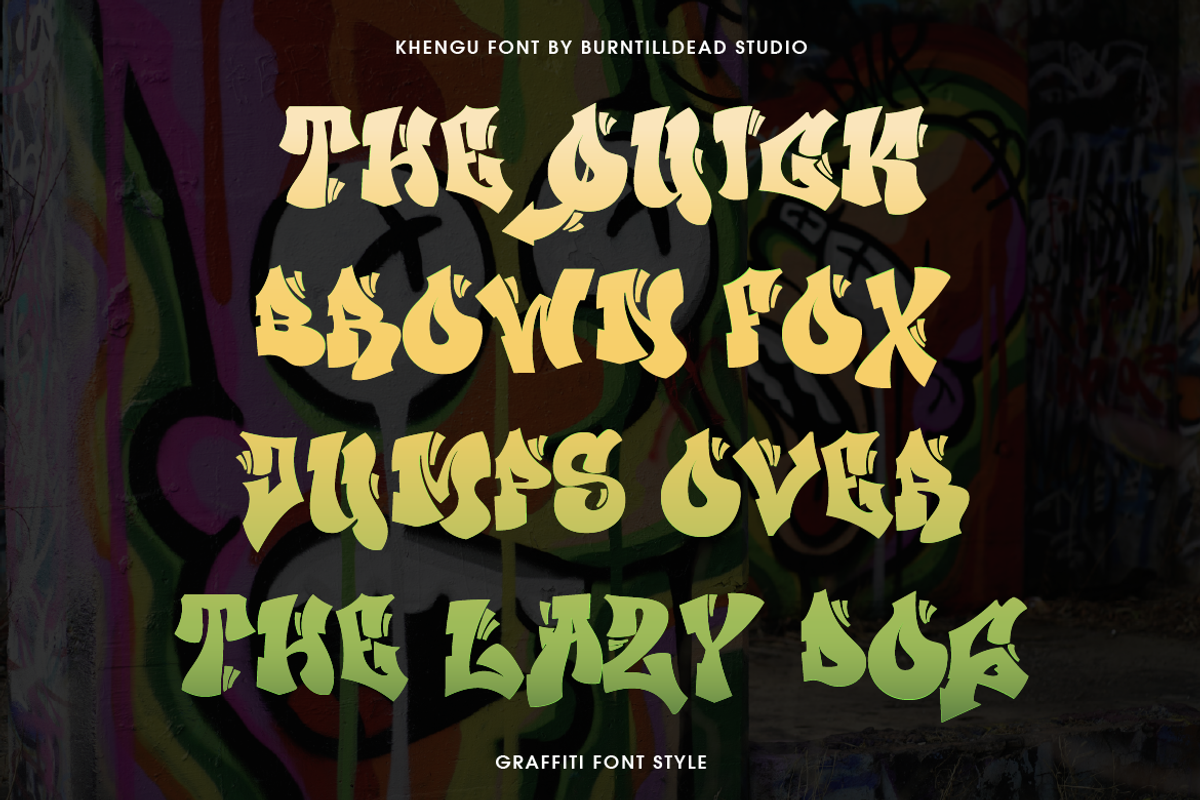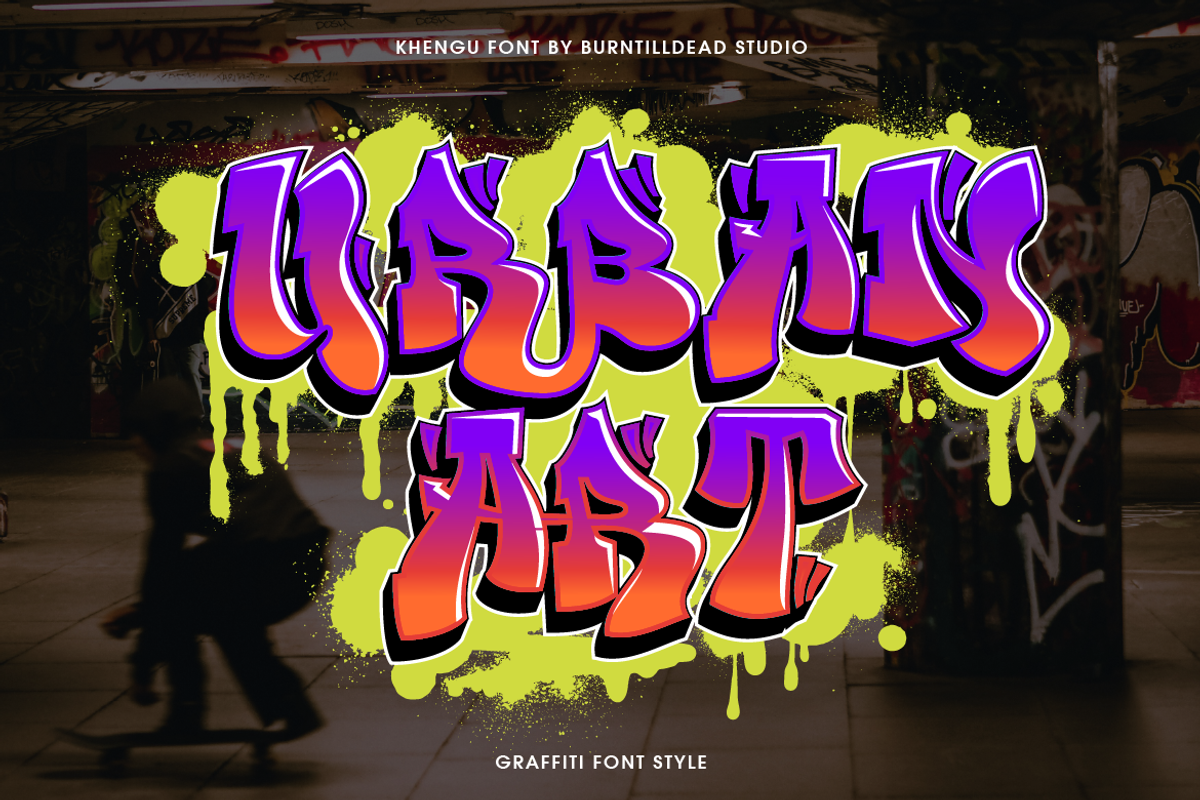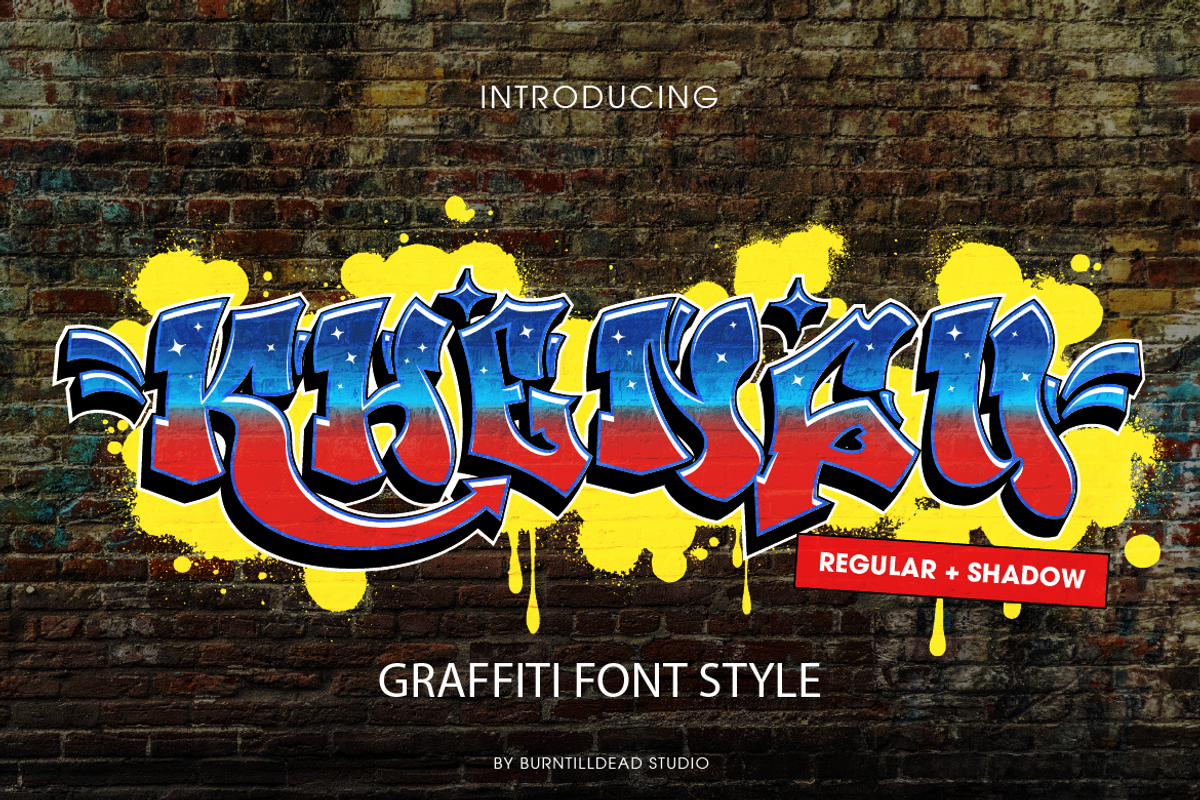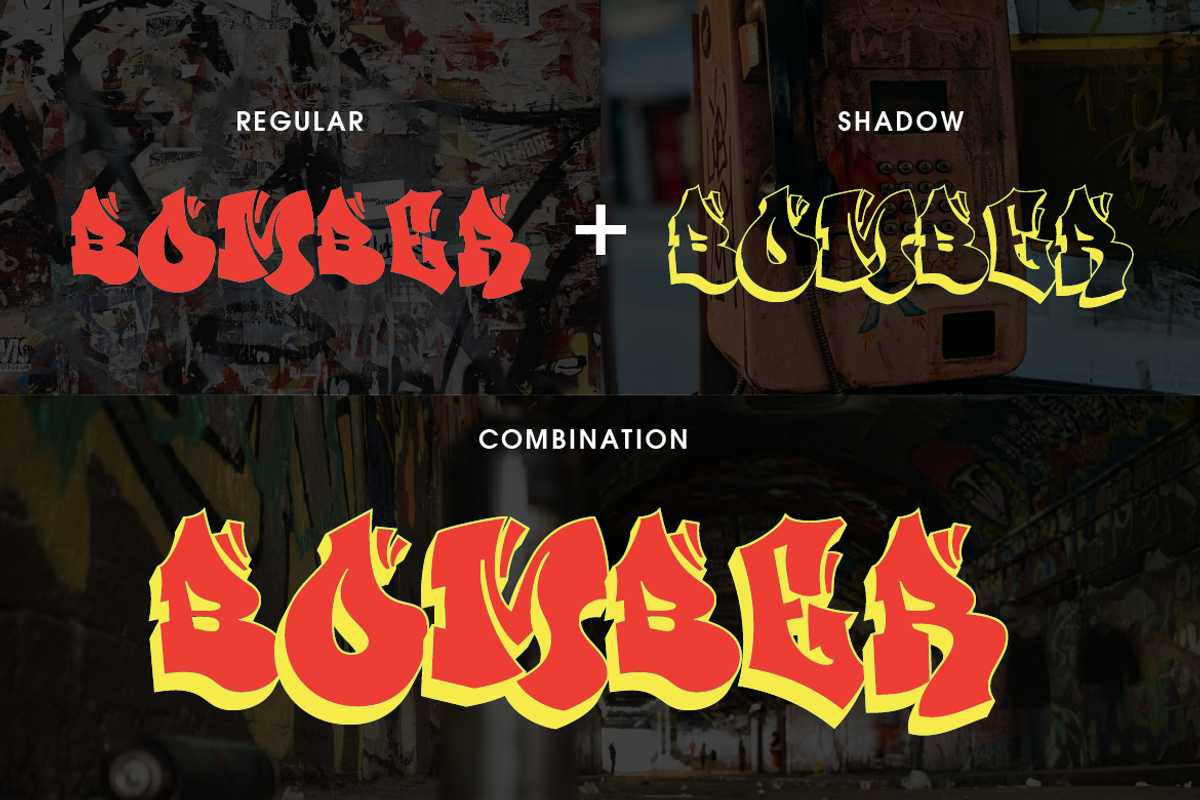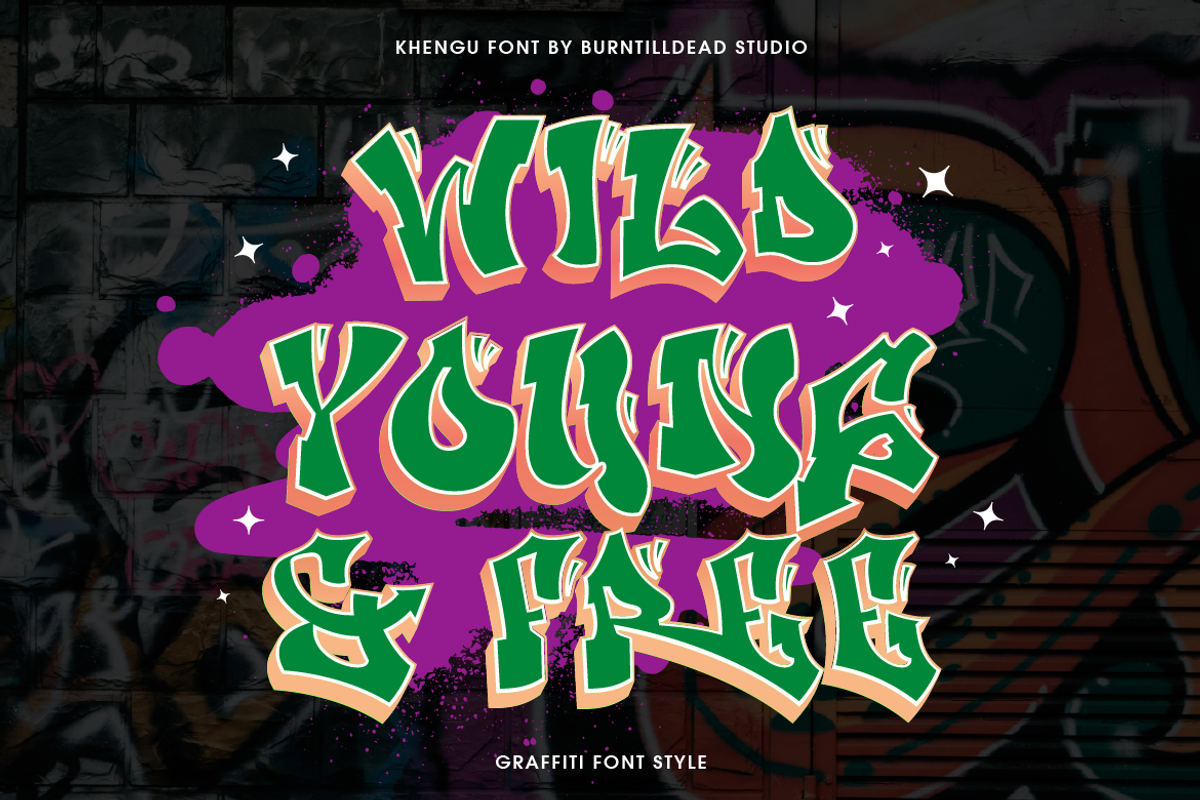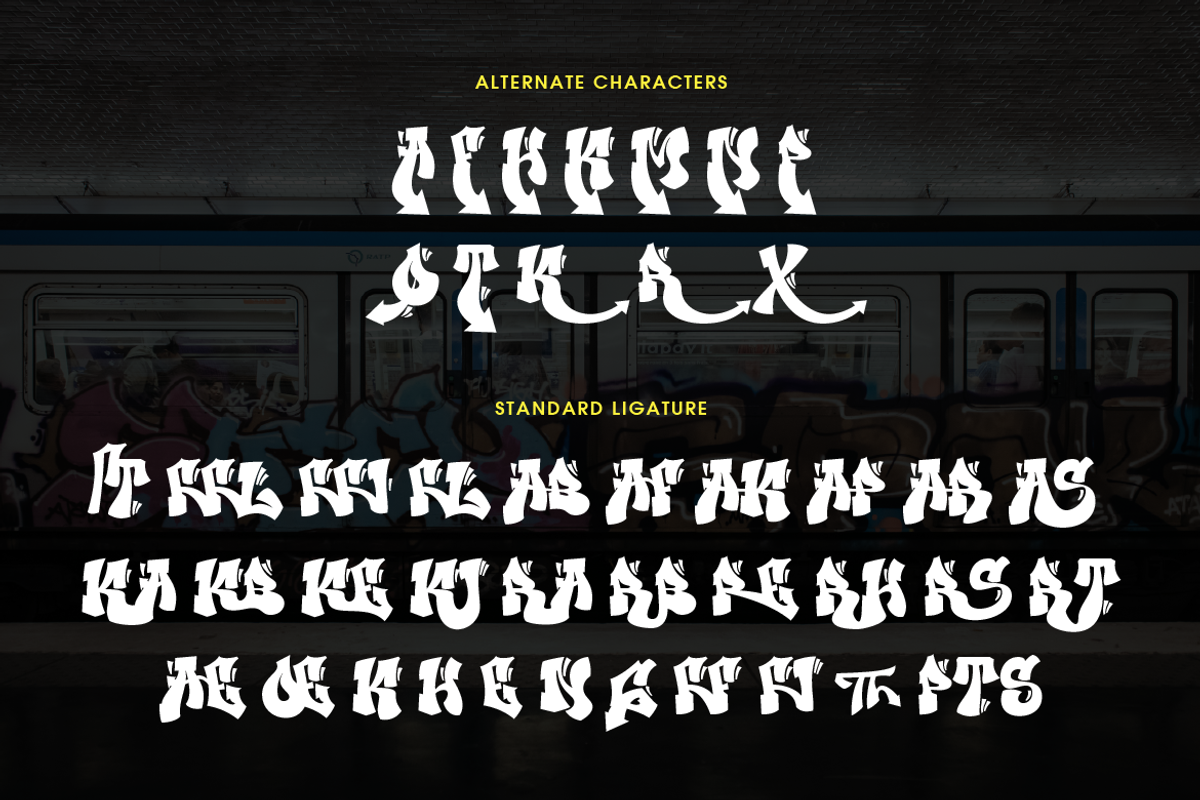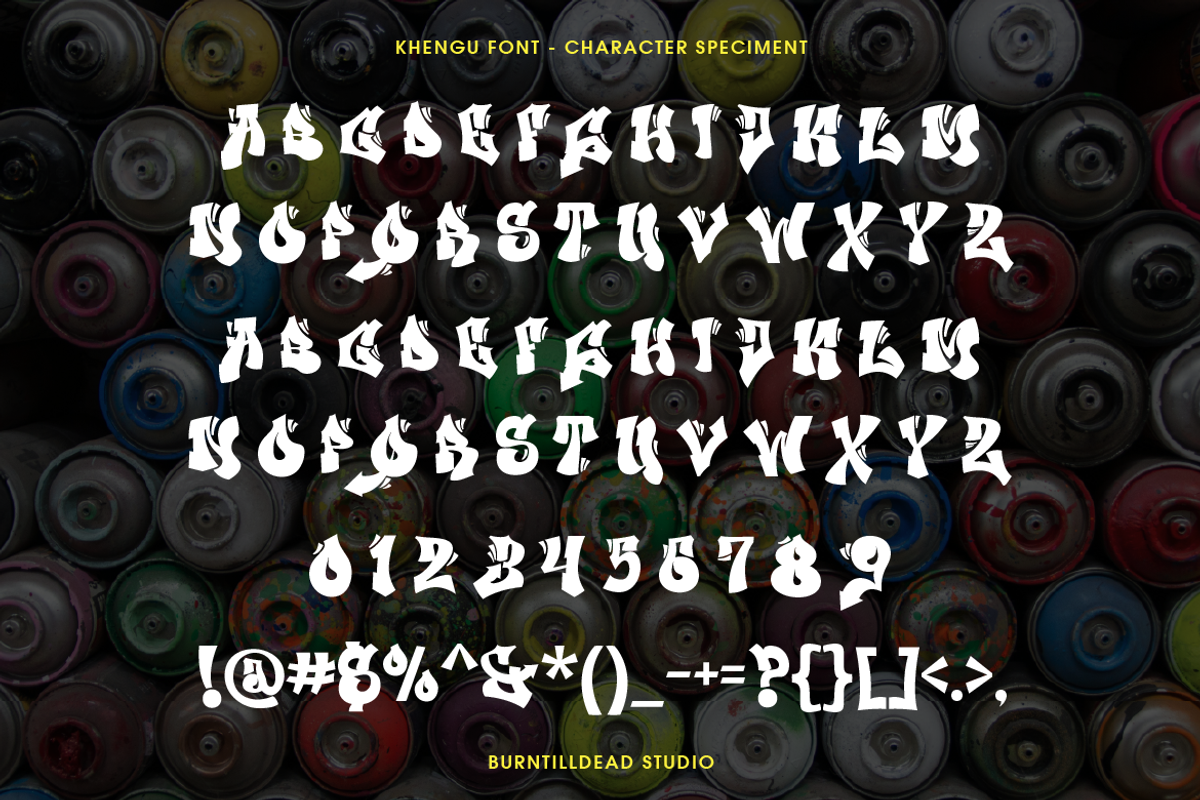
Khengu
Proudly present, a bold and dynamic graffiti style font that brings urban energy, Khengu! This font offer two styles: regular and shadow. Khengu also packed with alternates and standard ligatures, gives you flexibility to customize your text and create unique, expressive lettering combination for your design. Whether you're designing for posters, album covers, streetwear branding, or digital artwork, this font help you to create graffiti design easily while making them stand out and grab people’s attention.
- A - Z set (Uppercase & Lowercase)